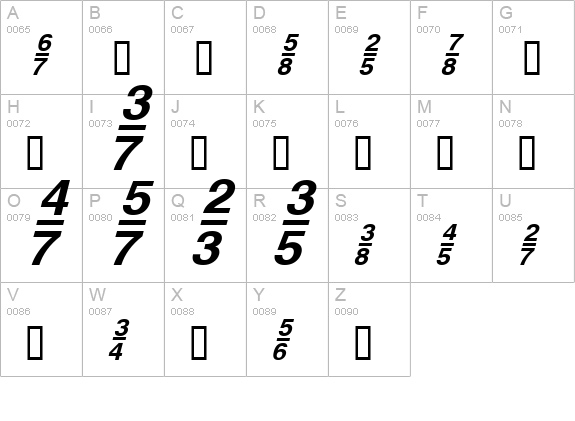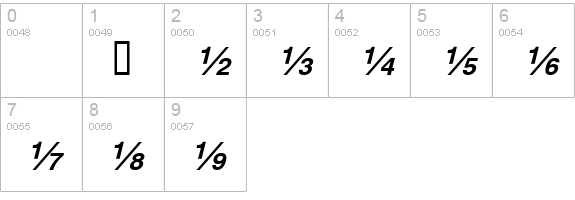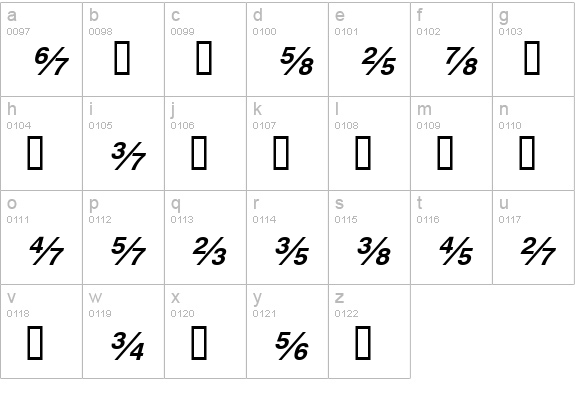
HeFractions BoldItalic Font Details
Introducing HeFractions BoldItalic - a bold and daring font that exudes confidence and sophistication. With its unique blend of boldness and elegance, this font is perfect for adding a touch of modernity to any design project. HeFractions BoldItalic is not just your average font - it is a work of art. Each letter has been meticulously crafted to ensure a seamless flow and captivating visual impact. The boldness of the strokes combined with the delicate curves create a harmonious balance that commands attention. This font is versatile and adaptable to various design needs. Whether you're designing a logo, creating a poster, or even crafting a website, HeFractions BoldItalic will elevate your design to new heights. Its bold and italicized style adds a touch of drama and intensity, making it stand out from the crowd. What makes HeFractions BoldItalic even more impressive is that it is freely available to download at FontsMarket.com. Yes, you read that right - this font can be yours without spending a penny. FontsMarket.com is a reputable source for high-quality fonts, and they are generously offering HeFractions BoldItalic to all design enthusiasts. So, why wait? Take advantage of this incredible opportunity to enhance your design projects with HeFractions BoldItalic. Download it for free at FontsMarket.com and unlock a world of creativity and visual impact. Let your designs speak volumes with the boldness and elegance of HeFractions BoldItalic.